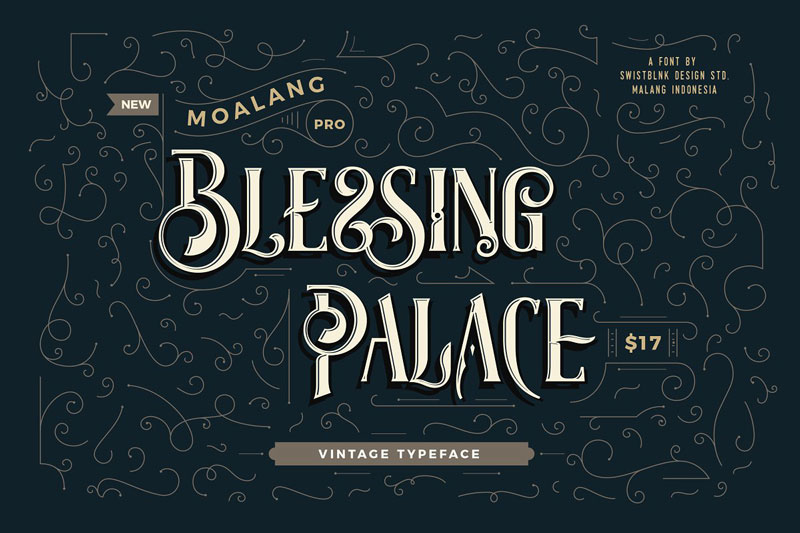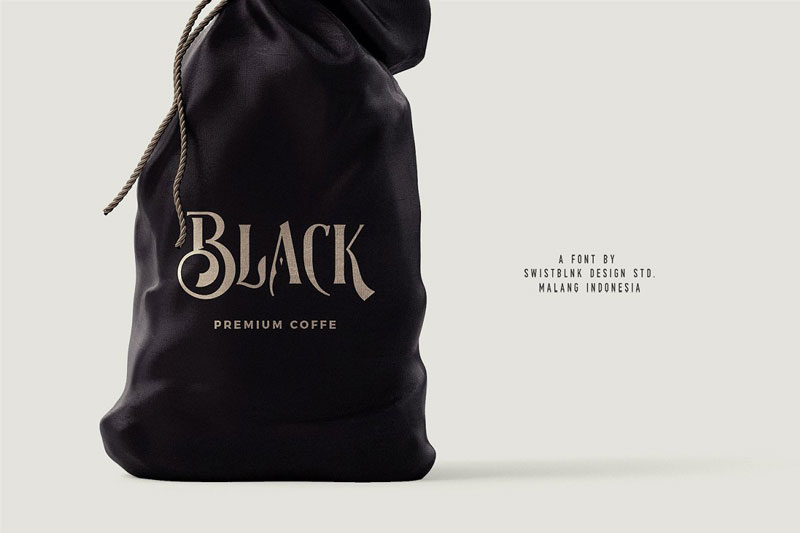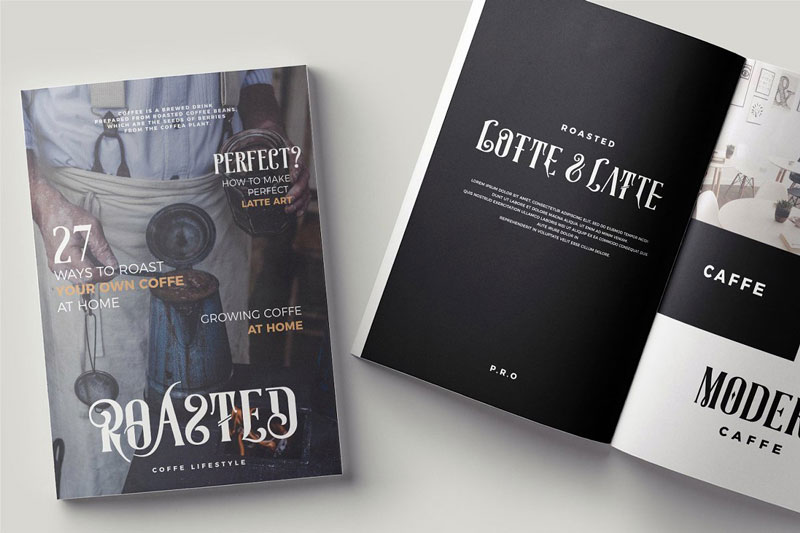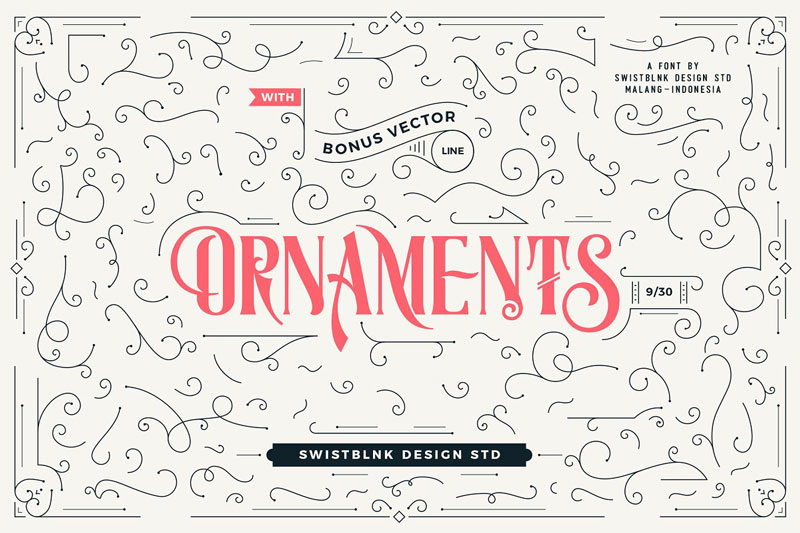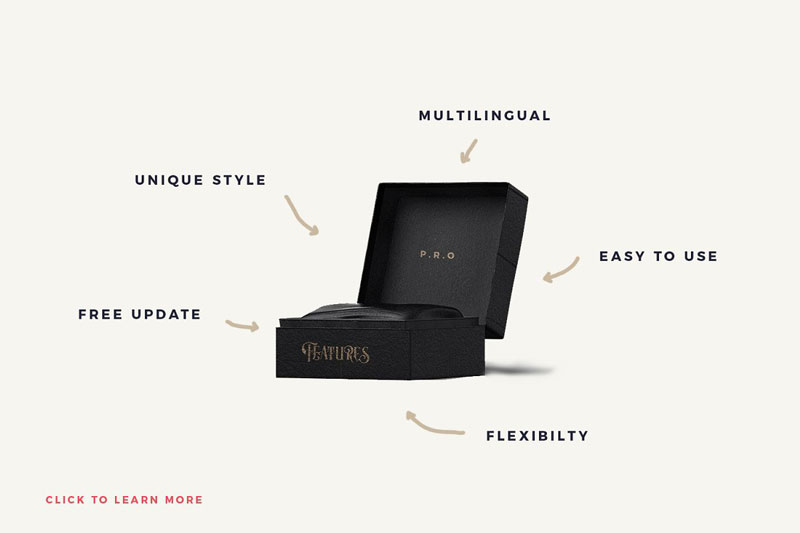
Moalang Pro + Ornament Font
Moalang Pro 252B Ornament Font
Moalang Pro + Ornament Font
Moalang is a vintage display font with a unique glyph combination to create a fresh look on your project. This font comes with tons of cool Alternates Characters and OpenType Features, there’s so many possibilities combination. Also Checkout Bellisa Script Font.
• Suitable for Headlines, Logotypes, Signs, Posters, Letterhead, T-Shirt, and many more.
There are more than 412 glyphs in the font including Stylistic sets, Ligatures, Titling Alternates, etc. Stylistic Sets and Titling Alternates in some characters that allow you to mix and match pairs of letters to fit your design.